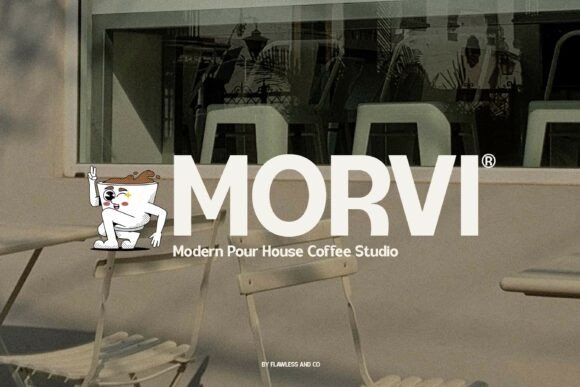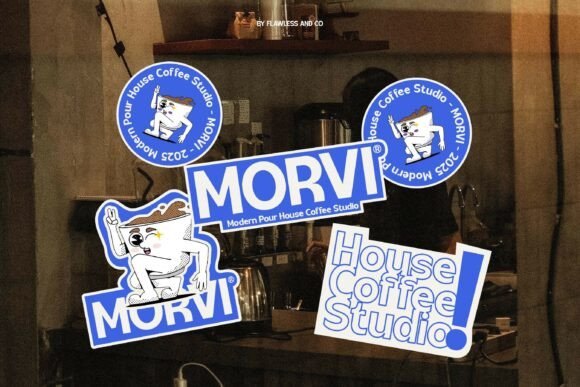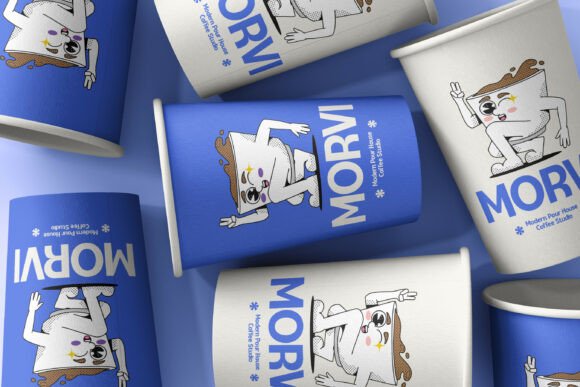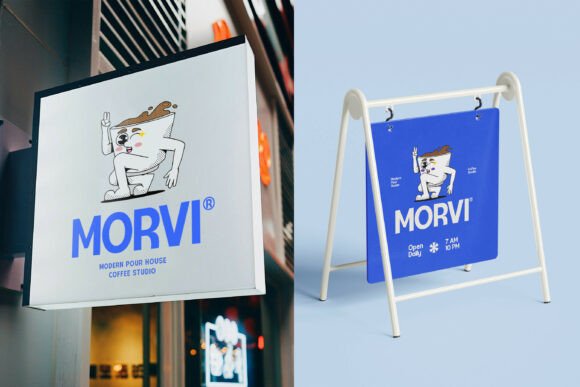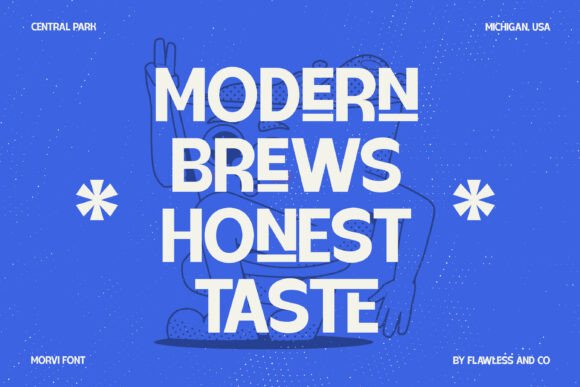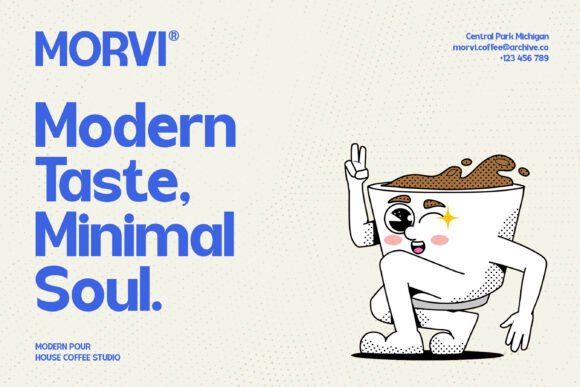
Introduction to Morvi Font Font
Fonts play a crucial role in design, and the Morvi Font font is a typeface that brings both character and versatility to any project. Whether you’re working on a branding project, a website, or a print design, the Morvi Font font offers a unique style that can elevate your work.
Morvi is a retro bold sans serif font that brings playful nostalgia and confident energy into your design.
With its thick, rounded shapes and vintage-inspired look, Morvi captures the fun, quirky charm of retro typography — perfect for projects that want to stand out with personality and boldness Each letter is crafted with smooth curves and balanced proportions, making it ideal for eye-catching titles, branding, and packaging.
Key Features of Morvi Font Font
Why Choose Morvi Font Font?
The Morvi Font font is more than just a typeface – it’s a design tool that helps you communicate your message with style and clarity. Its unique character set and versatile design make it suitable for a wide range of applications, from elegant invitations to bold headlines.
With its carefully crafted letterforms and balanced proportions, the Morvi Font font ensures readability and visual appeal across all mediums.
What makes Morvi Font font special?
The Morvi Font font stands out with its unique design, exceptional readability, and versatility across various design applications.